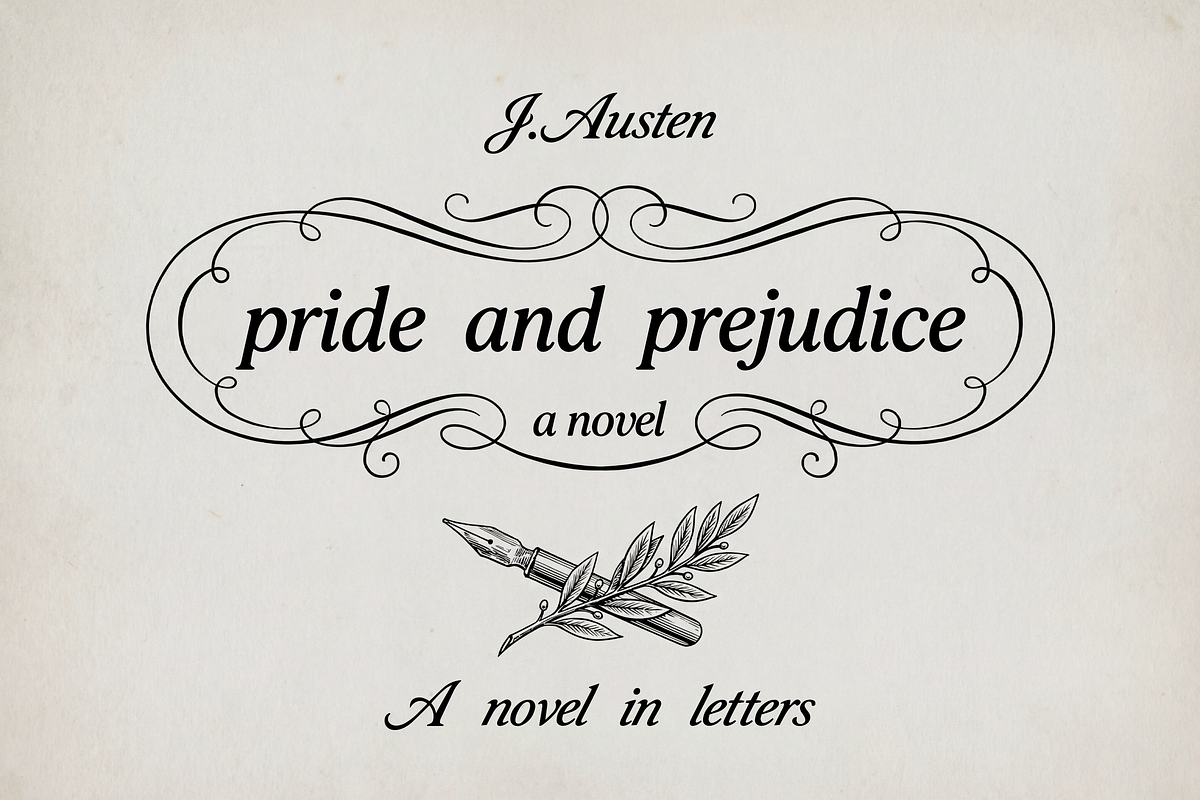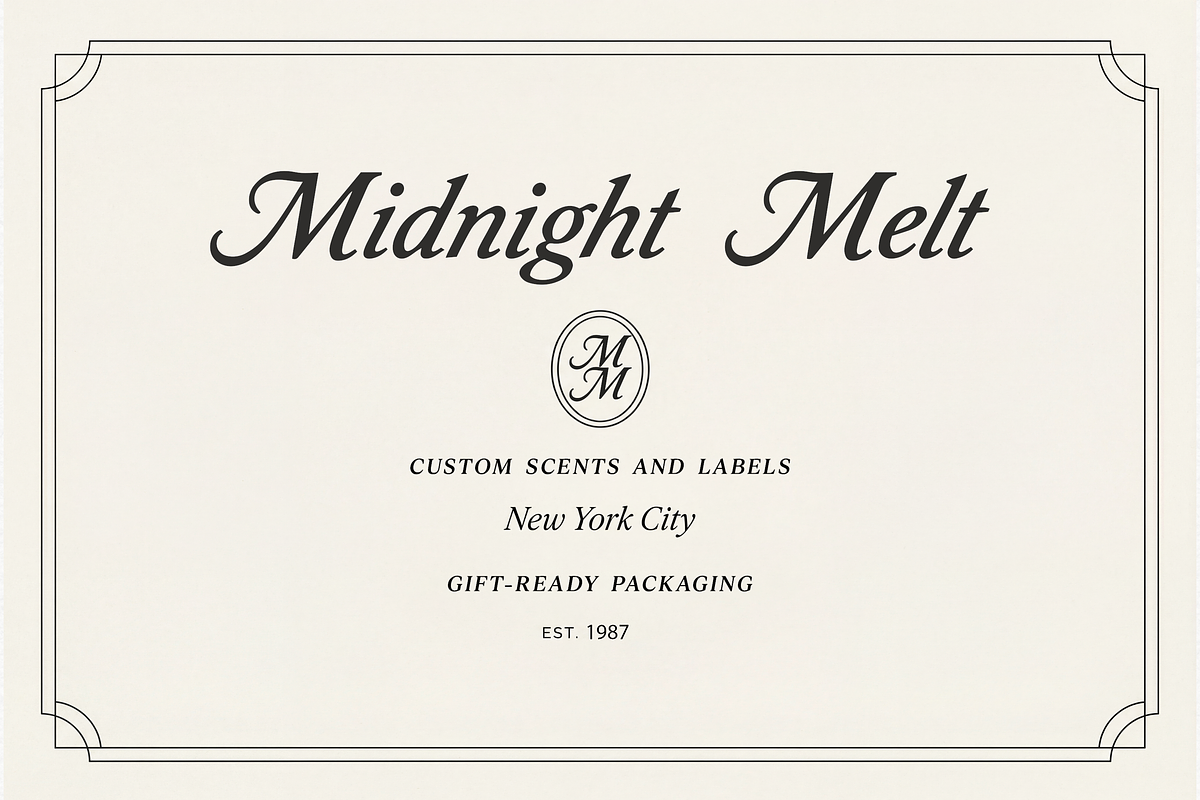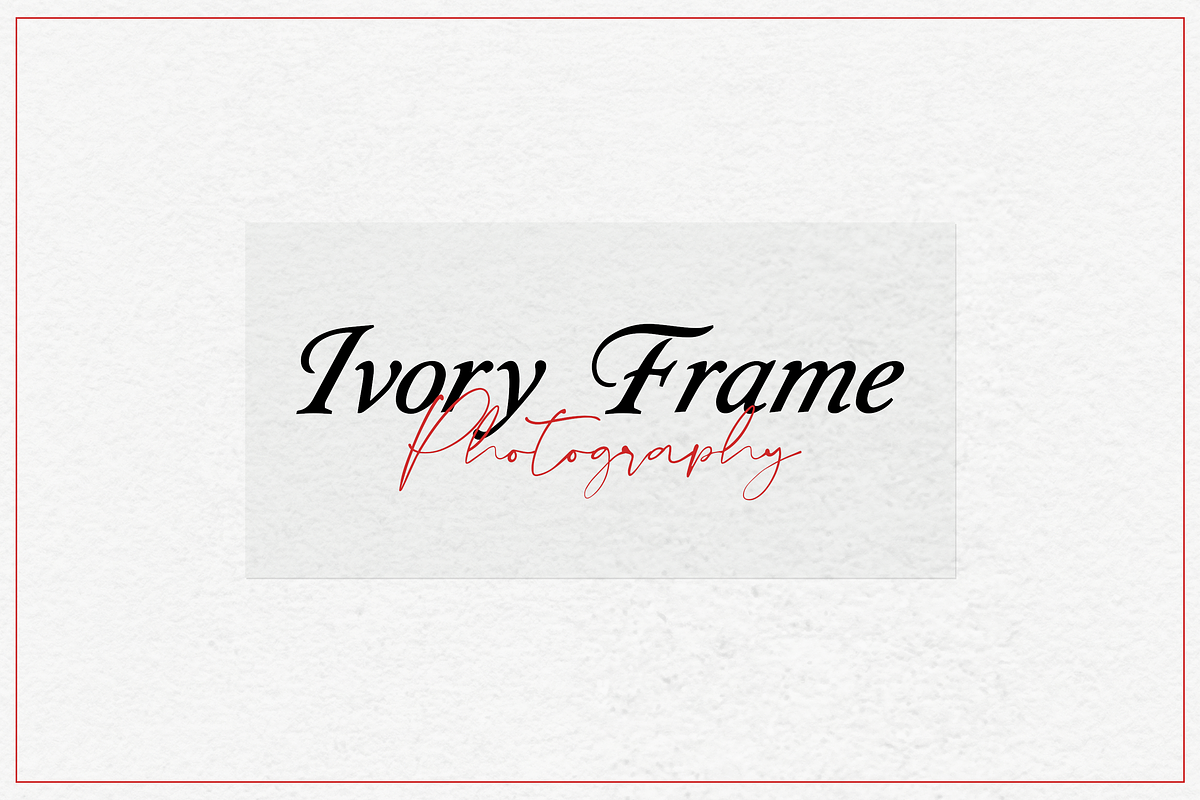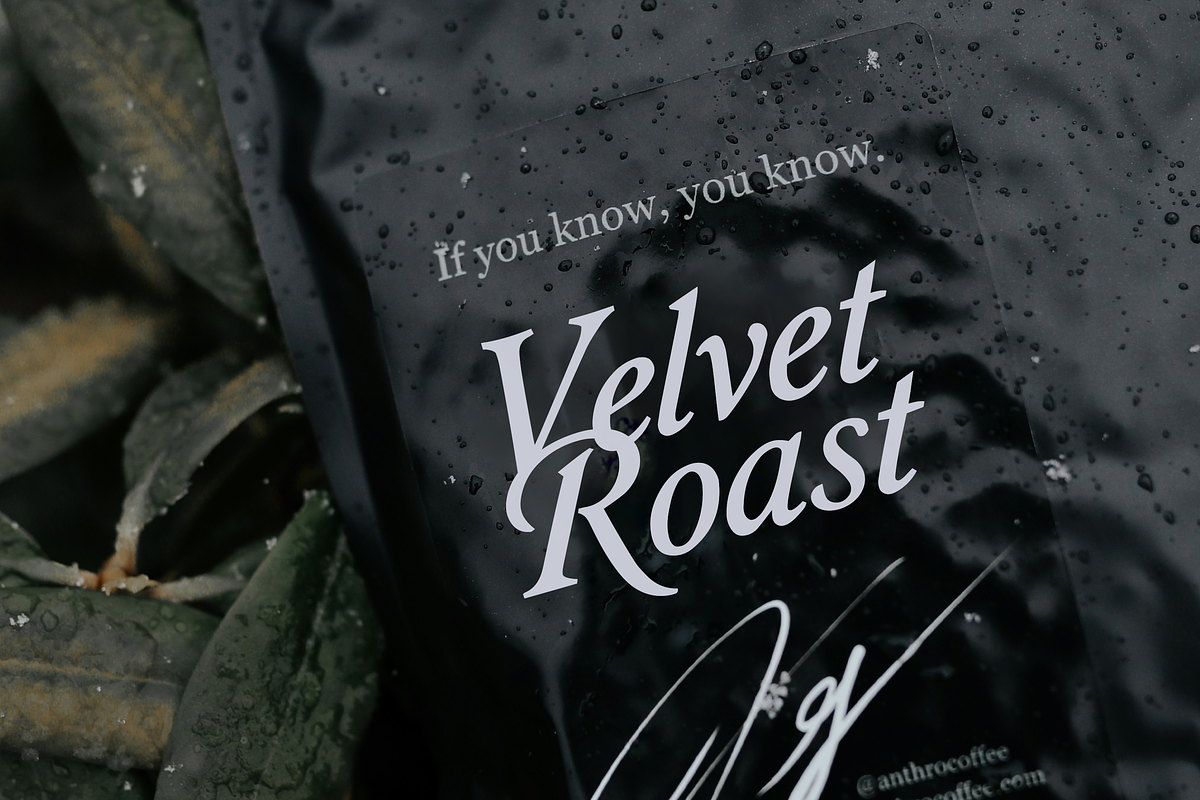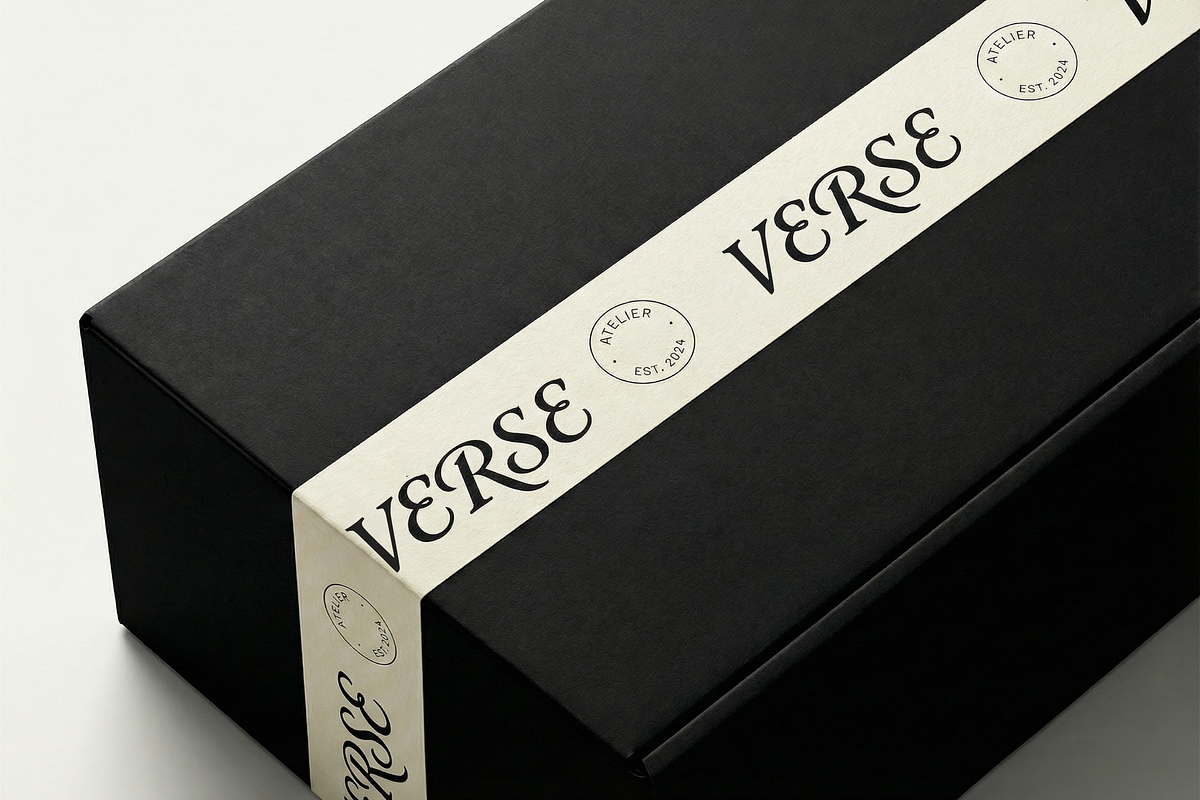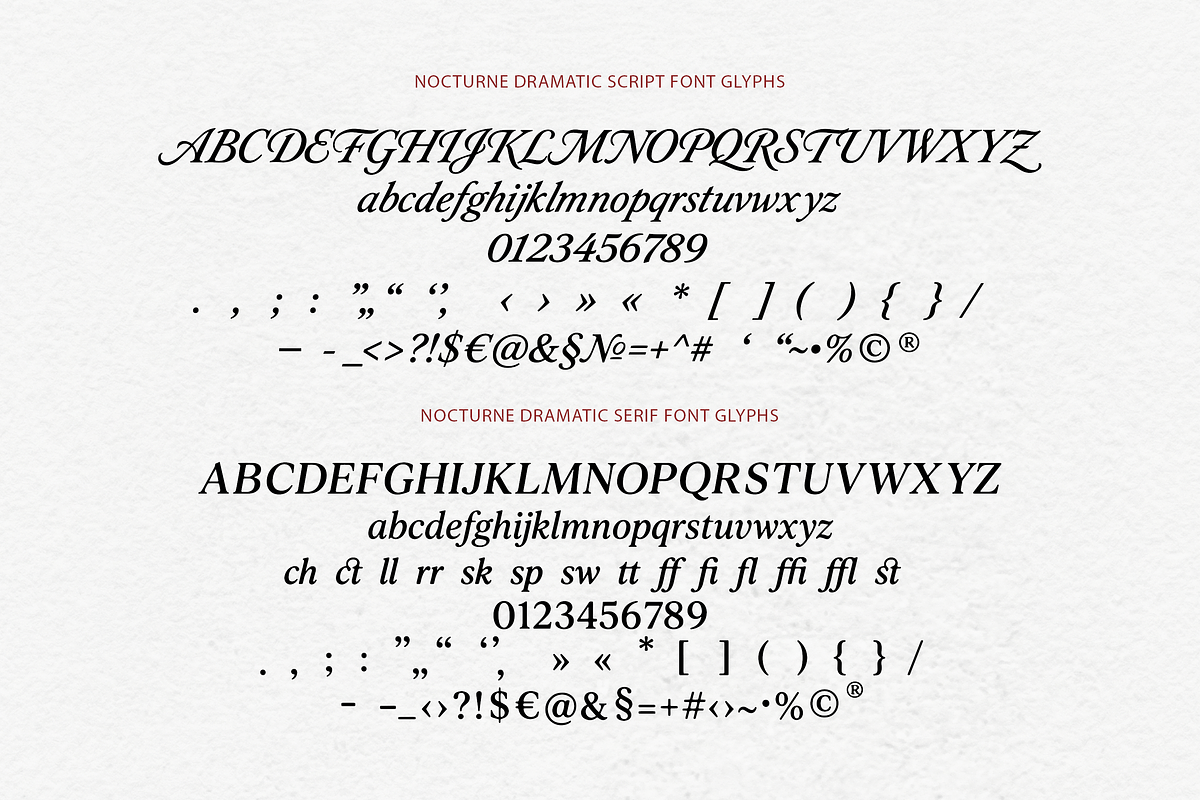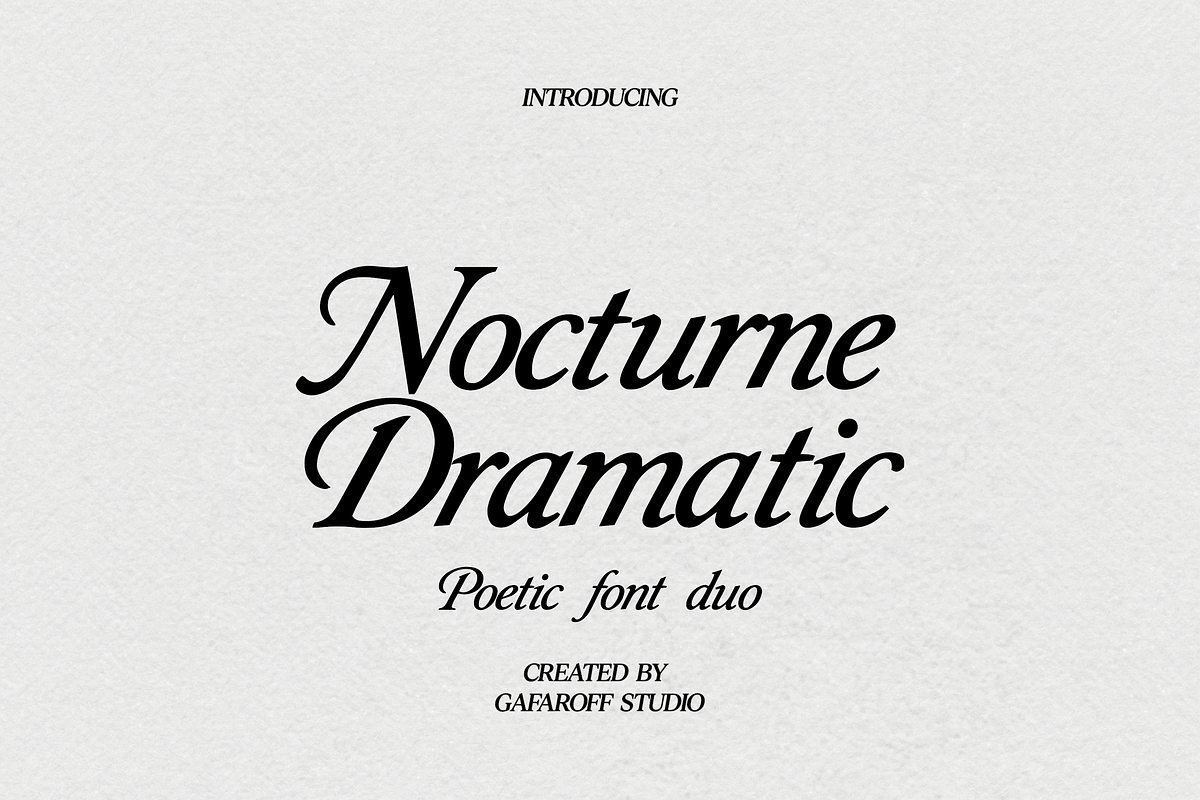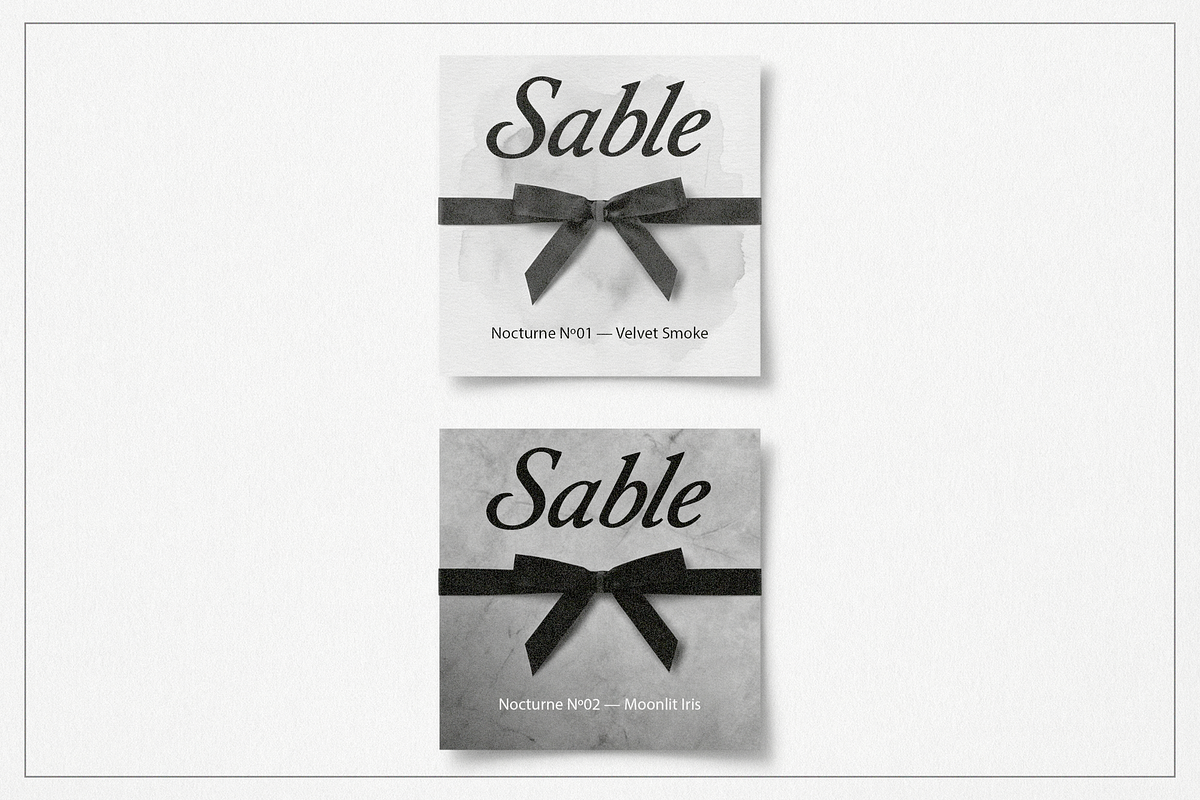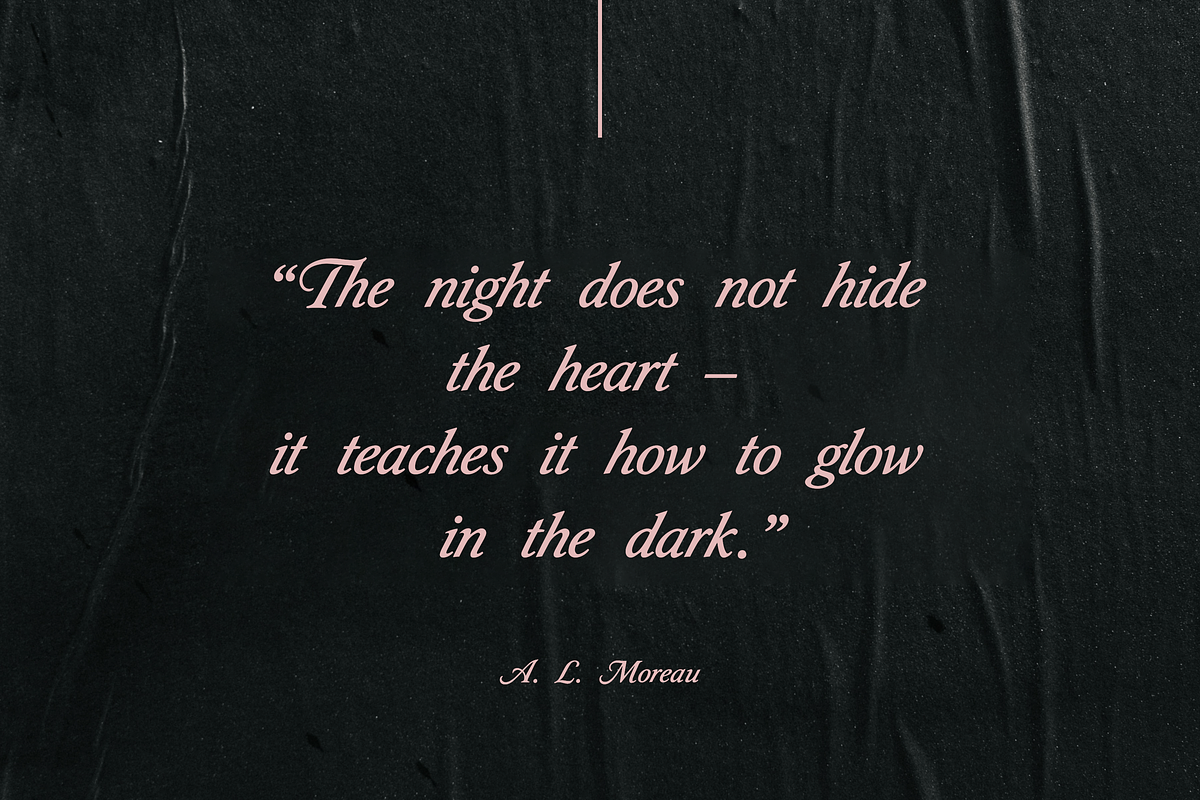
Nocturne Dramatic Font Duo
Nocturne Dramatic is a poetic font duo inspired by vintage calligraphy and classic editorial typography.
• Luxury branding and logo design • Wedding invitations and stationery • Editorial headlines and book covers • Perfume, candle, and fashion packaging • Social media graphics and quotes • Posters and high-end print designs